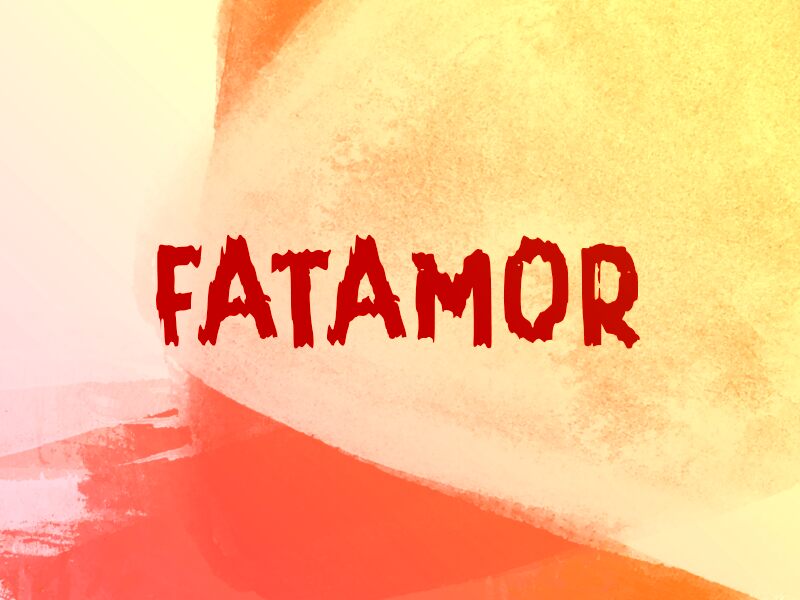
FATAMOR
Fatamor is a captivating display font that exudes an unmistakable air of mystery and intrigue. Crafted by the talented designer wep, this typeface boasts a haunting, distressed aesthetic that instantly commands attention. The irregular, jagged letterforms convey a palpable sense of danger and unease, making it a compelling choice for horror-themed projects, heavy metal album covers, or edgy, avant-garde designs.
The font's distinct personality lends itself seamlessly to a wide range of applications, from eye-catching promotional materials to immersive gaming environments.
Fatamor's stark, visceral appeal ensures it stands out in any context, leaving a lasting impression on audiences.
The font's distinct personality lends itself seamlessly to a wide range of applications, from eye-catching promotional materials to immersive gaming environments.
Fatamor's stark, visceral appeal ensures it stands out in any context, leaving a lasting impression on audiences.